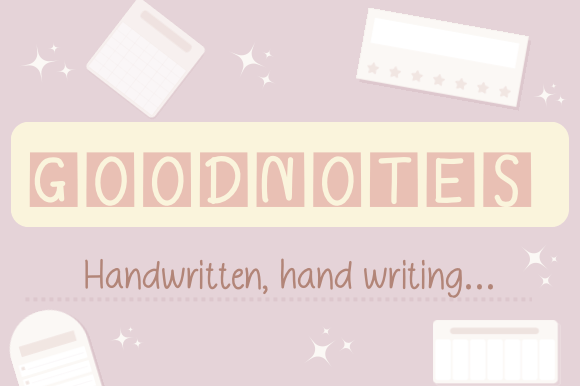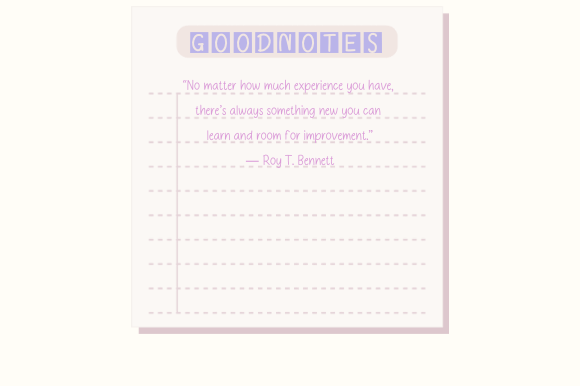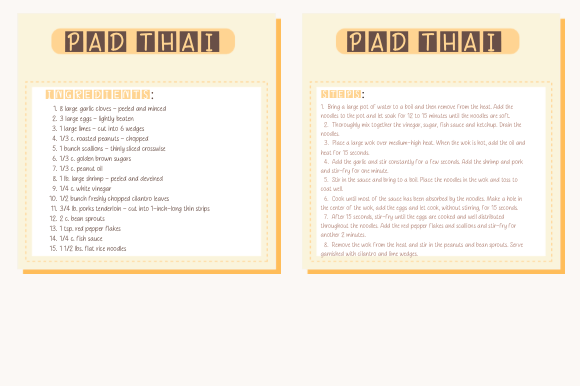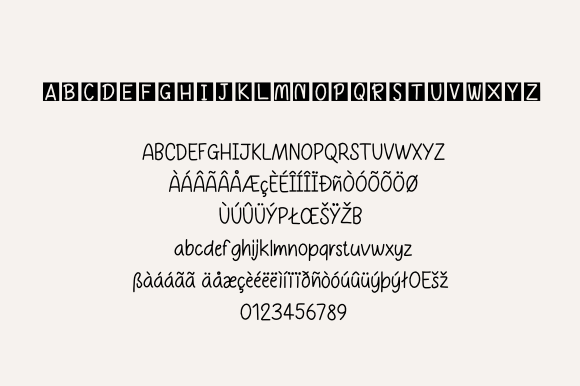
Goodnotes Font: Cute Handwritten Font for Digital Notes & Printable Crafts
About the Goodnotes Font
The Goodnotes Font offers a perfect balance of form and function for your design needs. Write beautifully and neatly with this Goodnotes font. It gives you the option to write beautiful and legible notes while maintaining a classic handwritten look. It is perfect for use in any note-taking app or computer.
Goodnotes Font’s classic handwritten aesthetic makes it ideal for projects requiring a personal touch, such as invitations, greeting cards, or short-form content in branding materials. Its legibility also suits menus, signage, and packaging where readability at a glance is key. However, avoid using it for large blocks of text or body copy; its handwritten nature can hinder readability in extended paragraphs or UI elements.
The font’s personality is friendly and approachable, yet sophisticated. To complement this, pair Goodnotes with a clean sans-serif like Open Sans for body text or a geometric sans-serif such as Futura for a more modern feel. For a more playful approach, consider pairing it with a handwritten script font, but ensure significant contrast in weight and style to maintain readability.
Consider Goodnotes Font for brands aiming for a balance between traditional charm and modern accessibility. Its versatility allows for both handwritten elegance and clear communication, making it suitable for a wide range of applications when used appropriately.
Goodnotes Font Usage Examples
Goodnotes Font Example